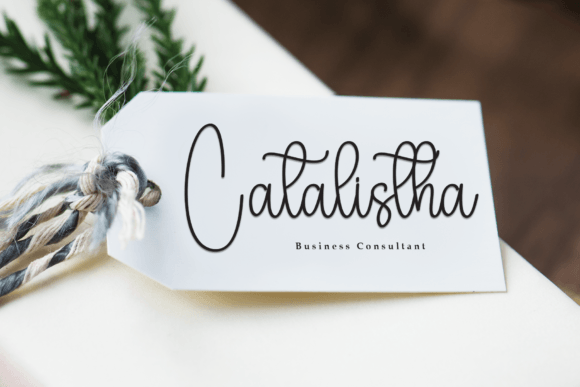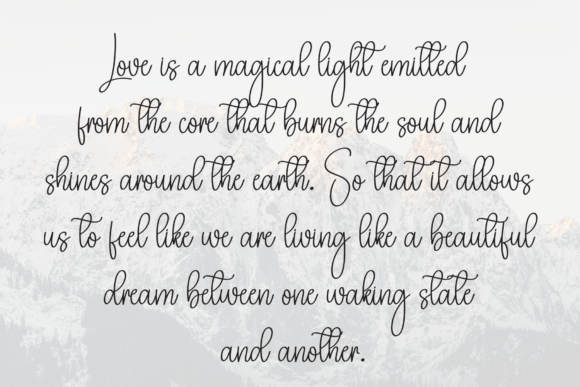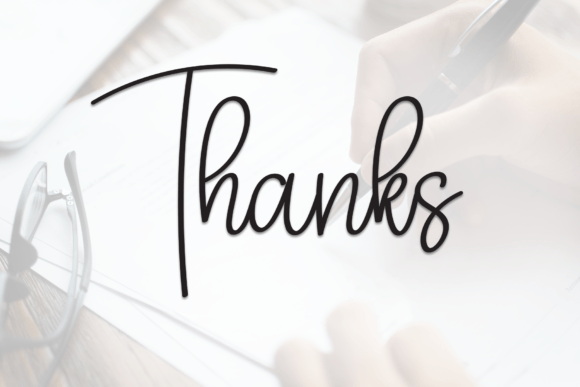
| 📌 Product Name | Elaine Signature Font |
That’s where the Elaine Signature Font comes in – a sweet and friendly handwritten font that’s perfect for adding a touch of elegance and whimsy to your designs. With its delicate and refined lines, this font is ideal for creating a fun and inviting atmosphere that’s sure to delight your audience. As a designer, you know how valuable it is to have a versatile font like Elaine Signature Font at your disposal – one that can elevate your work and leave a lasting impression on your clients.
Elaine Signature Font Key Features
- Font Type: Script Font, ideal for signatures and handwritten text
- Unique Characteristics: Elegant, cursive script with subtle flair and connection between letters
Elaine Signature Font Review
Overall, I think Elaine Signature Font is a great addition to any designer’s toolkit. ✨ Here are some things that really work well:
- Cursive flair: The font’s cursive design adds a touch of elegance and sophistication to any text.
- High-quality outlines: The vector outlines are crisp and well-defined, making it easy to customize and resize the font.
- Unique style: The font’s signature look is instantly recognizable and sets it apart from other fonts in its class.
However, like any font, Elaine Signature Font has its limitations. ⚠️ Here are a few things to keep in mind:
- Overly ornate: Some users may find the font’s cursive design too ornate or difficult to read.
- Limited character set: The font’s character set is somewhat limited, which may make it less versatile than other fonts.
- Not suitable for body text: Due to its decorative nature, Elaine Signature Font is best used for headlines or titles rather than body text.
Overall, I think Elaine Signature Font is a great choice for designers who want to add a touch of elegance and sophistication to their projects. While it has its limitations, its unique style and high-quality outlines make it a valuable addition to any toolkit.
Elaine Signature Font is ideal for creating elegant and sophisticated designs, such as:
– Business cards and letterheads
– Menu design and food labels
– Artistic typography and quotes
– Custom signage and branding materials